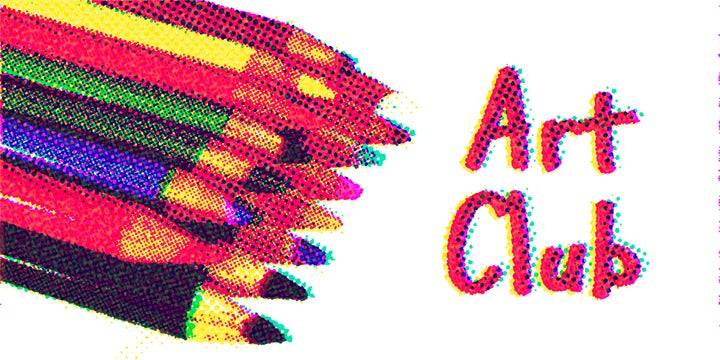
Art Club Font for Crafting, Logos and Print Projects
This font file delivers a chunky, whimsical letter style ideal for crafting projects, brand visuals, and printable designs. Art Club combines creative energy with clarity, making it perfect for headline text, product packaging, and DIY crafts. As a font entity, it functions smoothly in cutting software, desktop publishing apps, and print workflows.
With its friendly curves and expressive forms, Art Club is especially suited for child-themed graphics, handmade brands, and creative business designs that need to stand out while staying approachable.
- Crafters using Cricut, Silhouette, or laser cutters
- Brand designers working with playful aesthetics
- Print sellers targeting creative or educational markets
- Educators creating engaging visual materials
- Hobbyists designing cards, gifts, and decor
- Custom product packaging and branding kits
- Printable signage, worksheets, and labels
- Apparel graphics and home goods
- Classroom posters and student name tags
- Vinyl decals for mugs, folders, and totes
- Playful design with bold, rounded letters
- Perfect for kids’ crafts, fun logos, and DIY branding
- Great for expressive, approachable designs
| Feature | Art Club Font | Generic Display A | Generic Display B |
| Design Mood | Playful, bold, rounded | Modern block | Clean sans-serif |
| Best Uses | Crafts, packaging, classroom designs | Editorial headlines | Minimalist branding |
| Creative Tone | Fun, expressive, friendly | Professional | Neutral |